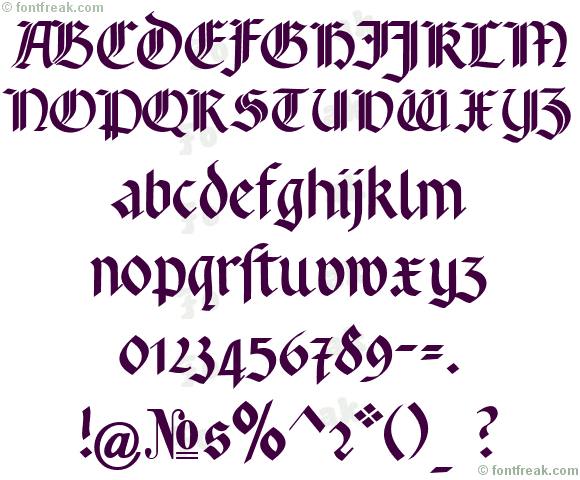
Rotunda Pommerania
About Rotunda Pommerania
Rotunda Pommerania is a striking display typeface designed by Peter Wiegel, showcasing a unique blend of traditional and contemporary styles. This serif font is characterized by its bold stroke weight and intricate decorative elements, which evoke a sense of historical elegance. The letters feature a moderate contrast, making them distinct yet readable, with a slightly condensed spacing that enhances its visual impact. The sharp serifs and ornate flourishes give the typeface a regal quality, making it suitable for various artistic applications.
This font excels in use cases that require a touch of sophistication and flair. It is an excellent choice for wedding invitations, where its elegant design can add a romantic touch. Additionally, Rotunda Pommerania works beautifully on movie posters, where its dramatic appearance can capture the essence of cinematic storytelling. Restaurant menus can also benefit from this font, as it imparts a sense of gourmet quality and charm. Graphic designers and content creators will find it particularly appealing for branding projects that aim to convey a sense of heritage and craftsmanship.
What sets Rotunda Pommerania apart is its ability to harmoniously combine classical influences with modern design sensibilities. This font not only serves as a functional typeface but also as an artistic statement, making it a standout choice for any designer looking to leave a lasting impression.